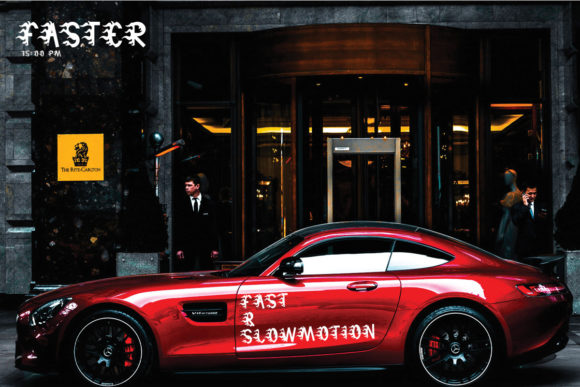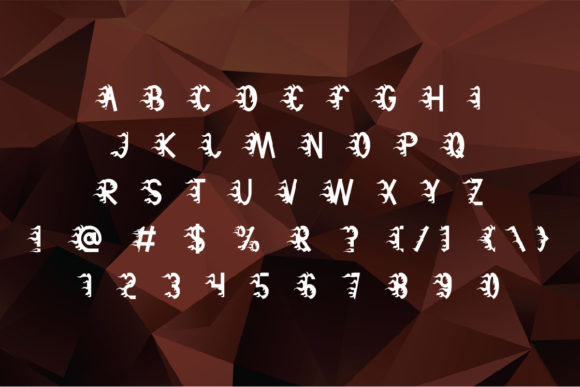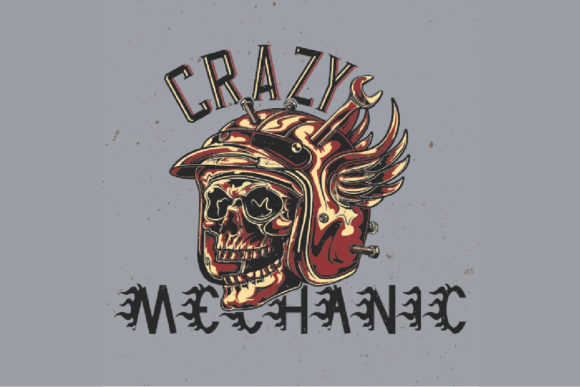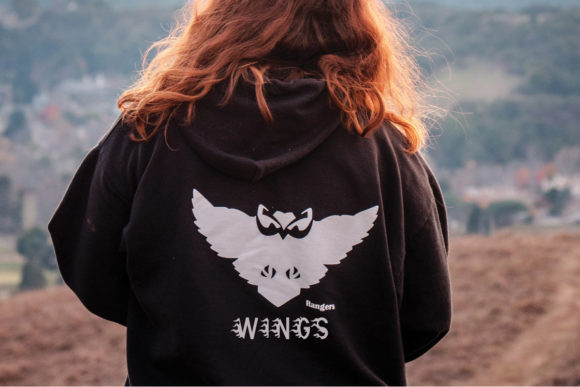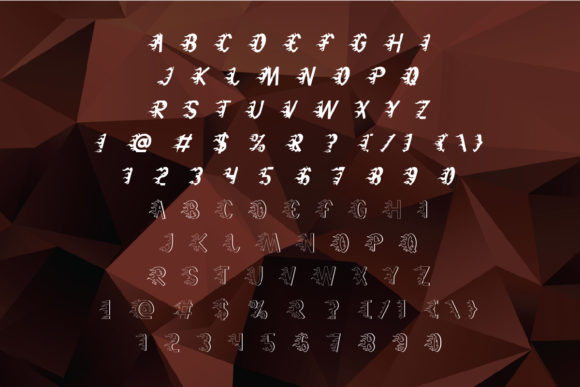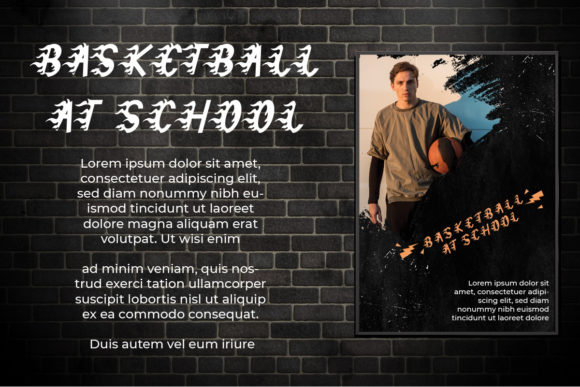
Unleash Your Creativity with Fire Speed Font: A Cool and Unique Decorative Font
Are you tired of using the same old fonts for your designs? Do you want to add a touch of excitement and uniqueness to your creations? Look no further than Fire Speed Font, a cool and uniquely designed decorative font that’s sure to make your work stand out. In this article, we’ll explore the features and benefits of Fire Speed Font, and how it can elevate your designs to the next level.
What is Fire Speed Font?
Fire Speed Font is a decorative font that’s expertly designed to add a touch of style and sophistication to your creations. With its unique and cool design, this font is perfect for designers and crafters who want to make their work look out of this world. Whether you’re working on a logo, a poster, a website, or any other design project, Fire Speed Font is sure to make a lasting impression.
Key Features of Fire Speed Font
• Unique Design: Fire Speed Font boasts a one-of-a-kind design that’s sure to grab attention. Its distinctive style sets it apart from other fonts, making it perfect for designers who want to create something truly unique.
• High-Quality: This font is crafted with precision and attention to detail, ensuring that it looks great in any design. Whether you’re working on a digital project or a print project, Fire Speed Font will always look sharp and professional.
• Versatile: Fire Speed Font is incredibly versatile, making it suitable for a wide range of design projects. From logos and posters to websites and social media graphics, this font can be used in any design where you want to make a statement.
Benefits of Using Fire Speed Font
So why should you choose Fire Speed Font for your designs? Here are just a few benefits of using this amazing font:
• Adds Visual Interest: Fire Speed Font adds a touch of visual interest to your designs, making them more engaging and attention-grabbing. Whether you’re working on a logo or a poster, this font is sure to make your design stand out.
• Enhances Creativity: With Fire Speed Font, you can unleash your creativity and create designs that are truly unique and original. This font is perfect for designers who want to push the boundaries of what’s possible with typography.
• Professional Look: Fire Speed Font gives your designs a professional look that’s sure to impress. Whether you’re working on a client project or a personal project, this font will help you create a design that looks polished and sophisticated.
Tips and Tricks for Getting the Most Out of Fire Speed Font
Here are a few tips and tricks to help you get the most out of Fire Speed Font:
• Experiment with Different Sizes: Fire Speed Font looks great in a variety of sizes, from small and delicate to large and bold. Experiment with different sizes to find the one that works best for your design.
• Play with Color: Fire Speed Font looks amazing in a range of colors, from bright and bold to subtle and muted. Try out different colors to find the one that works best for your design.
• Combine with Other Fonts: Fire Speed Font can be combined with other fonts to create a unique and visually interesting design. Try pairing it with a sans-serif font for a bold and modern look.
Fire Speed Font is a cool and uniquely designed decorative font that’s perfect for designers and crafters who want to add a touch of style and sophistication to their creations. With its unique design, high-quality craftsmanship, and versatility, this font is sure to become a go-to in your design arsenal. Whether you’re working on a logo, a poster, a website, or any other design project, Fire Speed Font is the perfect choice.